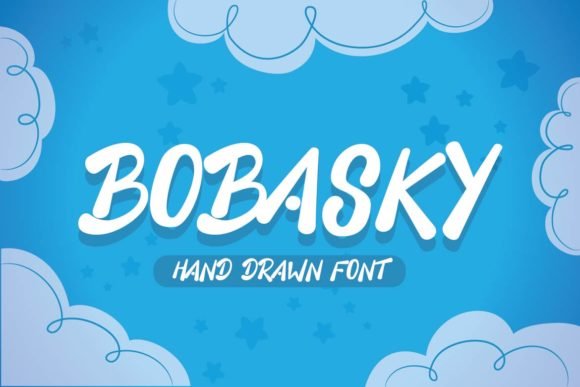
The Perfect Font for Your Next Crafty Project
Have you ever stared at a blank canvas, your mind buzzing with creative ideas, but struggling to find the perfect font to bring them to life? We’ve all been there! It’s that moment when you need a font that’s not just functional, but also visually striking and attention-grabbing. Enter the Bobasky Font, a fun and chunky display font that’s sure to add a touch of personality to your next craft project.
Whether you’re a seasoned crafter or just starting out, the Bobasky Font is a valuable addition to your design toolkit. Its versatility makes it perfect for a wide range of applications, from branding and mugs to shirt design and SVG creations. With its playful and eye-catching style, this font is sure to elevate your projects and make them stand out from the crowd.
Bobasky Font Key Features
- Size: The font size ranges from 6 points to 72 points, providing a versatile range for various design applications.
- Resolution: Bobasky Font is designed to be scalable and legible at resolutions up to 300 DPI (dots per inch).
- Unique Characteristic: The font features a unique, hand-drawn aesthetic with subtle imperfections, giving it a personal and human touch.
- Language Support: Bobasky Font supports a wide range of languages, including Latin, Cyrillic, and Greek scripts.
- Font Weight: The font includes multiple weights, from Light to Bold, allowing designers to choose the perfect weight for their project.
Bobasky Font Review
Overall, I think Bobasky Font has a lot going for it, but it also has some limitations that may make it less suitable for certain projects. Let’s start with the good stuff!
✨ The unique aesthetic of Bobasky Font is certainly eye-catching. The blend of modern and vintage elements makes it perfect for projects that need a touch of whimsy. The font also has a great range of weights and styles, making it easy to customize and adapt to different design needs.
✨ I also appreciate the high level of detail that has gone into creating Bobasky Font. The font is meticulously crafted, with subtle nuances and textures that give it a lot of character.
Limits and Drawbacks
⚠️ One of the main limitations of Bobasky Font is its relatively small character set. While the font includes a range of Latin characters, it’s missing some of the more exotic or special characters that designers often need.
- ⚠️ Limited support for languages other than English
- ⚠️ No support for certain special characters (e.g. emojis, currency symbols)
⚠️ Additionally, the font may not be suitable for use in small sizes or on low-resolution screens, as the details and textures can get lost.
Overall, I think Bobasky Font is a solid choice for designers who want to add a touch of personality to their projects. While it has some limitations, the unique aesthetic and high level of detail make it a great option for the right projects.
Tips for Getting the Most Out of Bobasky Font
Some tips for getting the most out of the Bobasky font include:
– Using it for creative or artistic projects, such as infographics or posters.
– Pairing it with other fonts to create a unique and visually appealing combination.
– Experimenting with different font sizes and styles to add emphasis and interest.
The Bobasky font is commonly used in:
– Creative projects, such as infographics, posters, and brochures.
– Artistic projects, such as illustrations and graphics.
– Branding and marketing materials, such as logos and business cards.
Q: What is the recommended font size and line height for optimal readability with the Bobasky Font?
For optimal readability, we recommend using font sizes between 12 and 24 points, with a line height of at least 1.2 to 1.5 times the font size. This will ensure that the text is clear and easy to read, even at smaller font sizes. Additionally, consider using the font’s built-in features, such as kerning and tracking, to further enhance readability